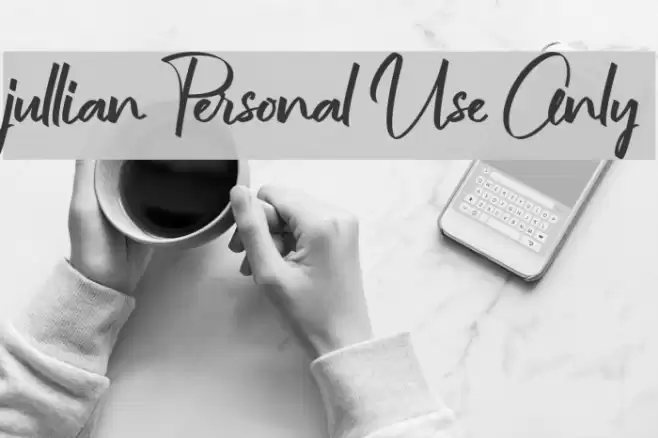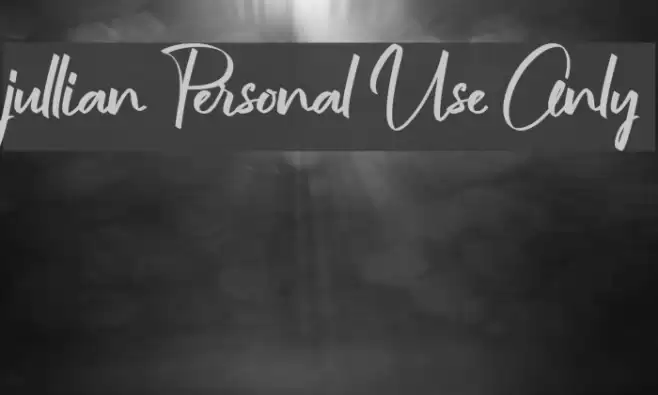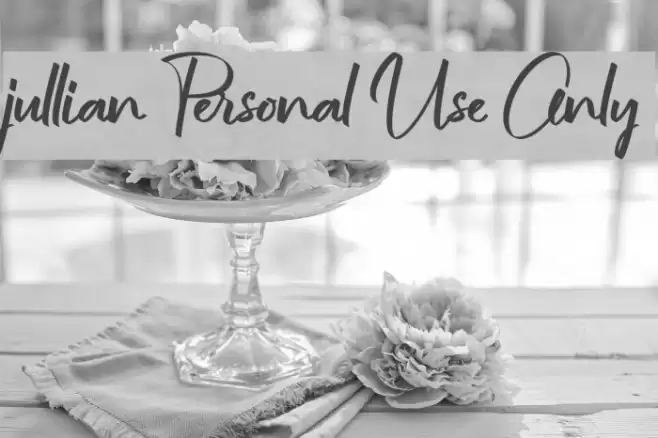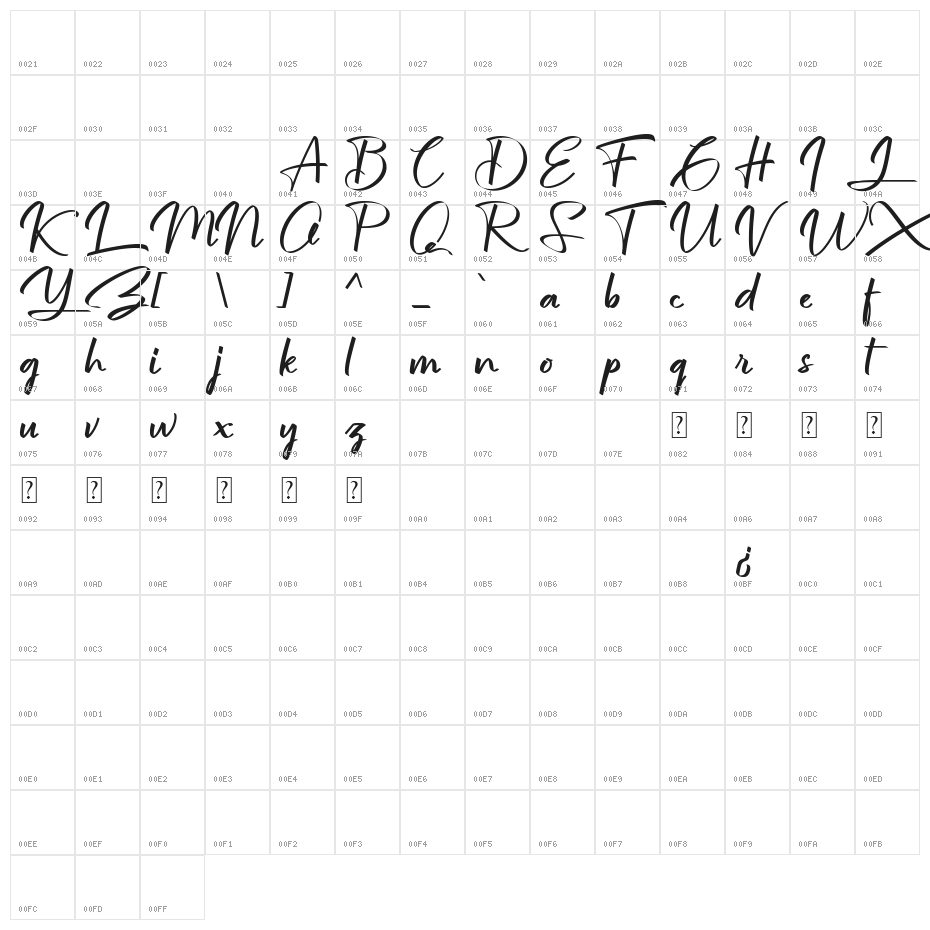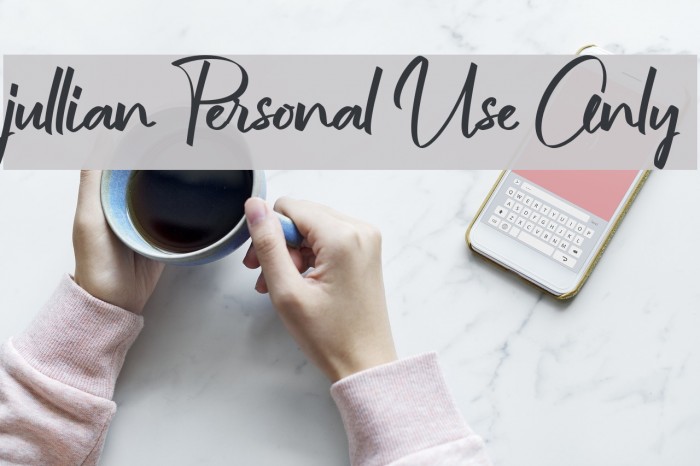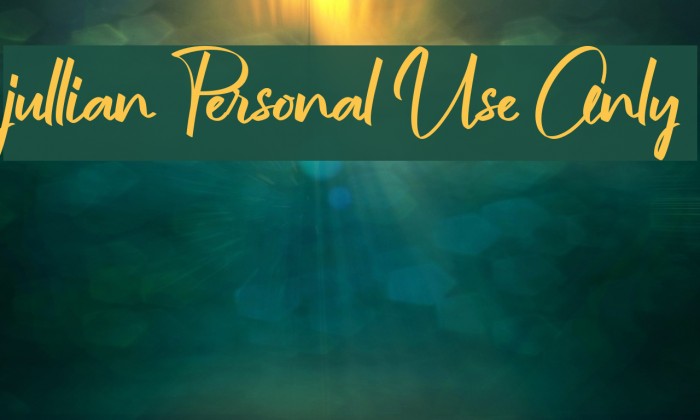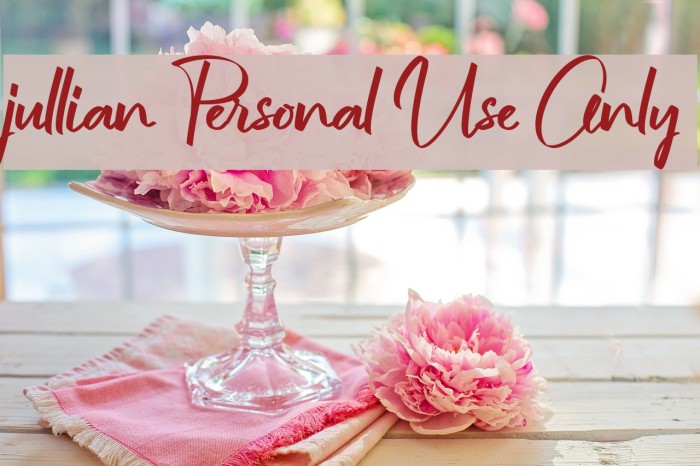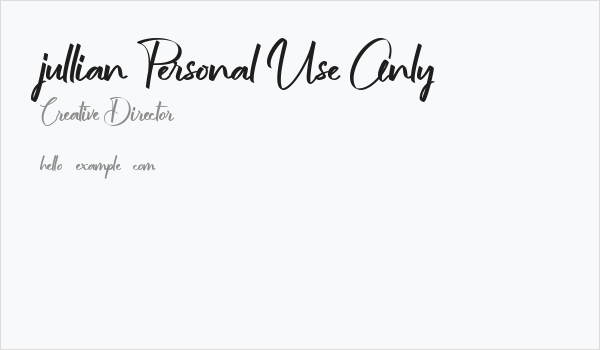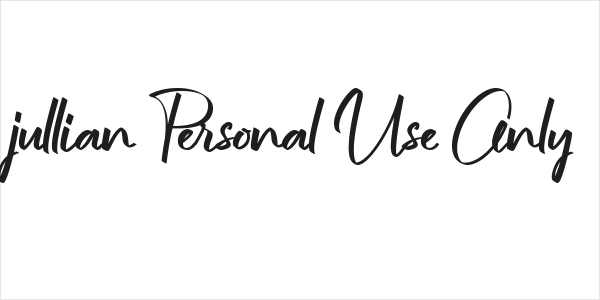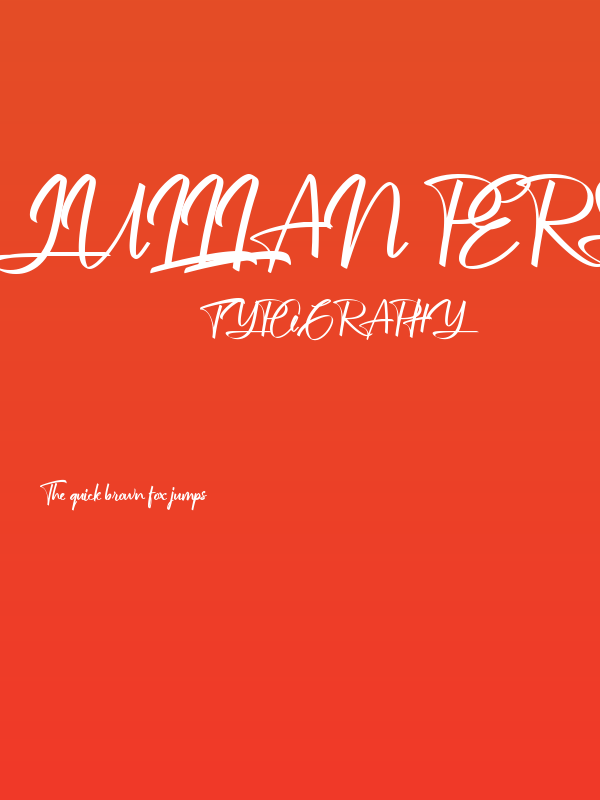
jullian Personal Use Only Font
jullian Personal Use Only Description
This font features a dynamic and flowing script style, characterized by its elegant and cursive letterforms. The uppercase letters exhibit a graceful, looping design with varying stroke widths that add a sense of movement and sophistication. The lowercase letters maintain a consistent style, with smooth connections and a slightly more compact form. The overall appearance is both stylish and legible, making it suitable for a variety of creative applications. The font's unique flair is evident in its distinctive character shapes, which blend traditional script elements with a modern twist. This combination of classic and contemporary design elements makes it versatile for both formal and casual uses.
A dynamic and elegant script font with flowing, cursive letterforms from Uncategorized fonts.
- Proposed Projects: Ideal for wedding invitations, branding, greeting cards, and elegant signage.
- Use Case: Logos, Invitations, Branding